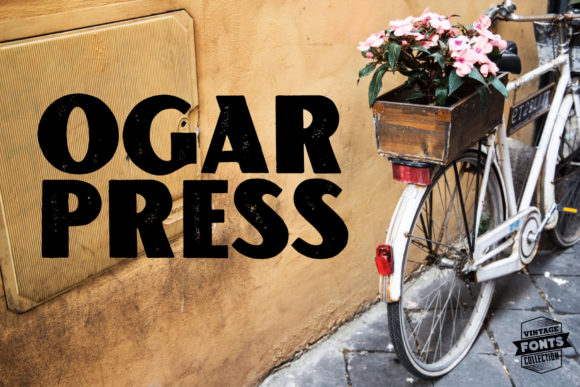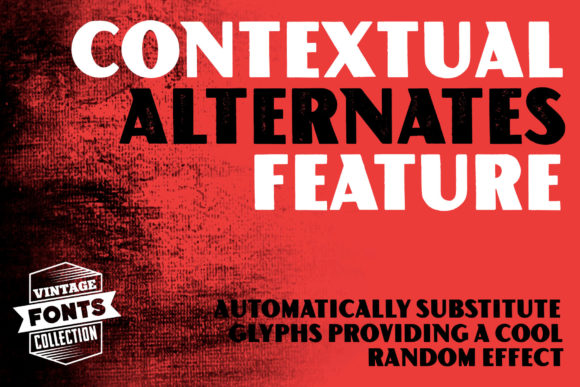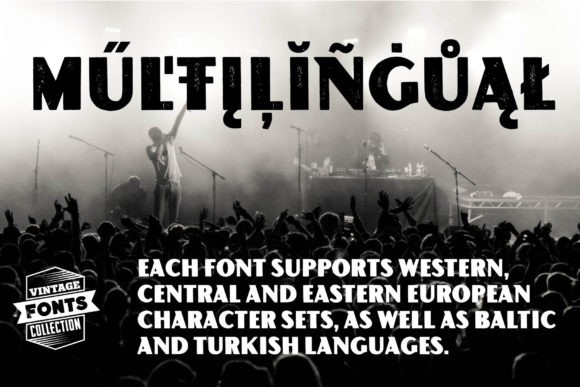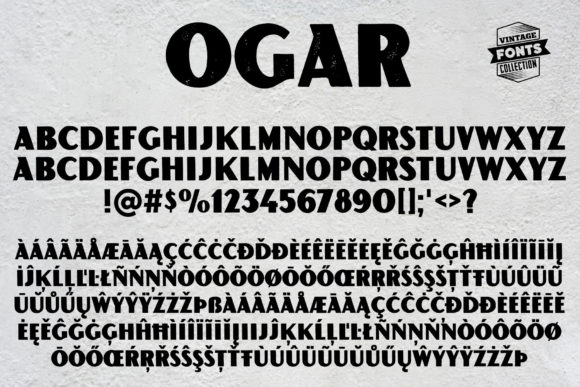
Introduction to Ogar Font Font
Fonts play a crucial role in design, and the Ogar Font font is a typeface that brings both character and versatility to any project. Whether you’re working on a branding project, a website, or a print design, the Ogar Font font offers a unique style that can elevate your work.
Ogar is an amazing vintage font with a bold feel.
Use this display font to turn any design idea into a true eye-catcher .
Key Features of Ogar Font Font
Why Choose Ogar Font Font?
The Ogar Font font is more than just a typeface – it’s a design tool that helps you communicate your message with style and clarity. Its unique character set and versatile design make it suitable for a wide range of applications, from elegant invitations to bold headlines.
With its carefully crafted letterforms and balanced proportions, the Ogar Font font ensures readability and visual appeal across all mediums.
What makes Ogar Font font special?
The Ogar Font font stands out with its unique design, exceptional readability, and versatility across various design applications.